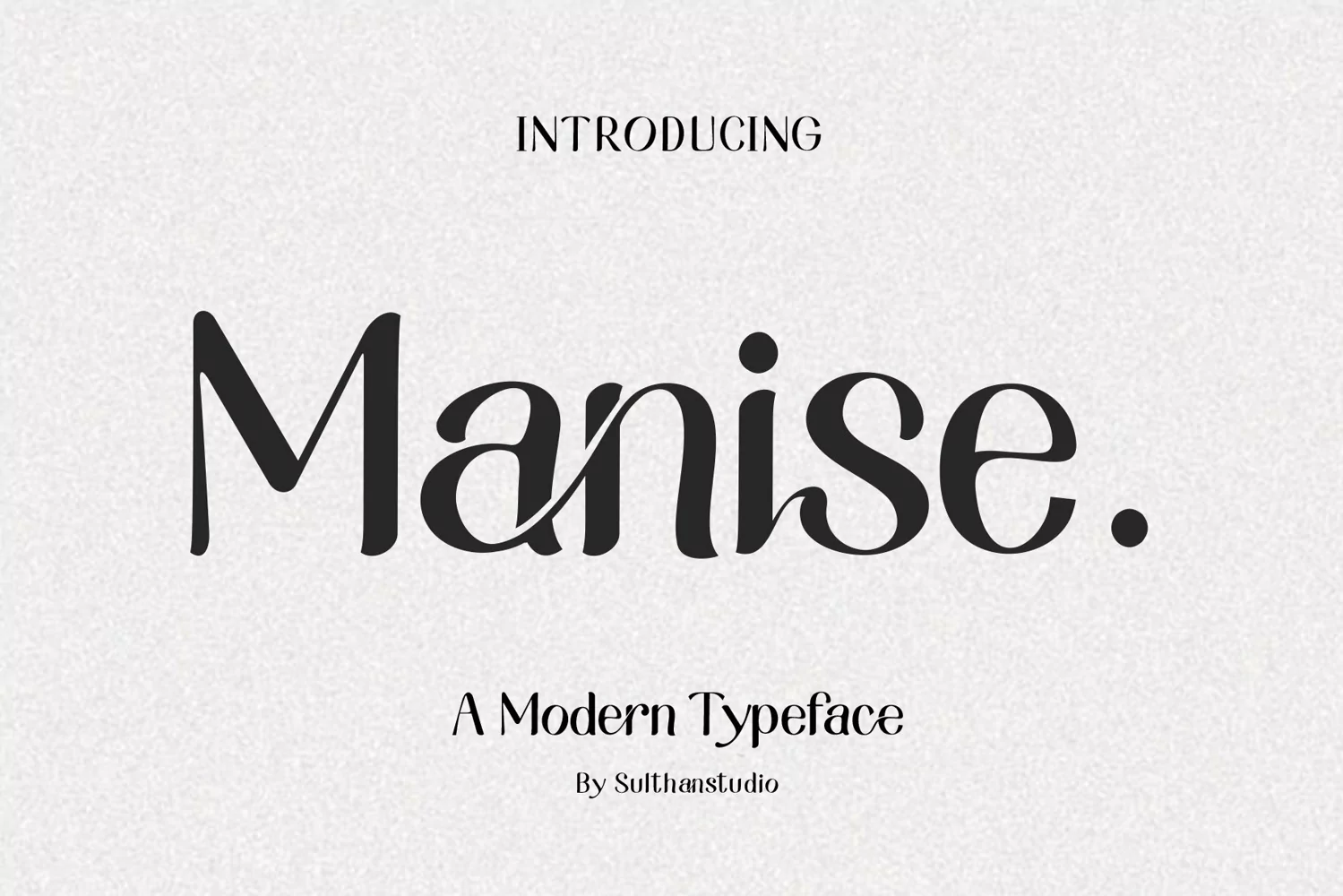
A modern font with a Typeface display style, very attractive, coupled with several lowercase ligatures. This font is available in 3 thickness styles such as regular, Bold, and Out line .
This font has uppercase, lowercase, numbers, punctuation, and language support.